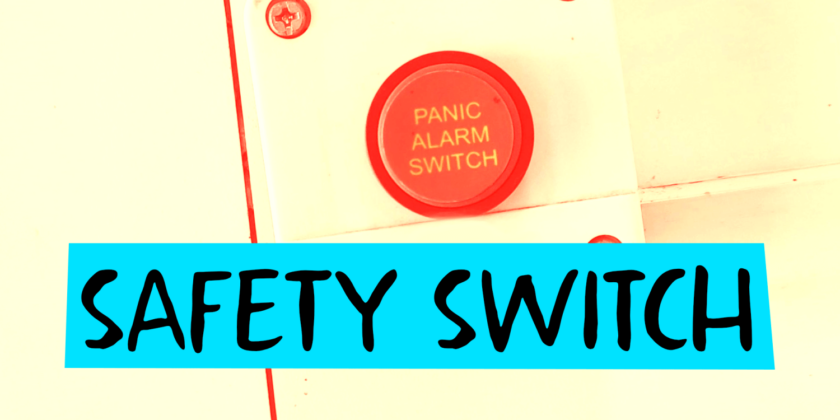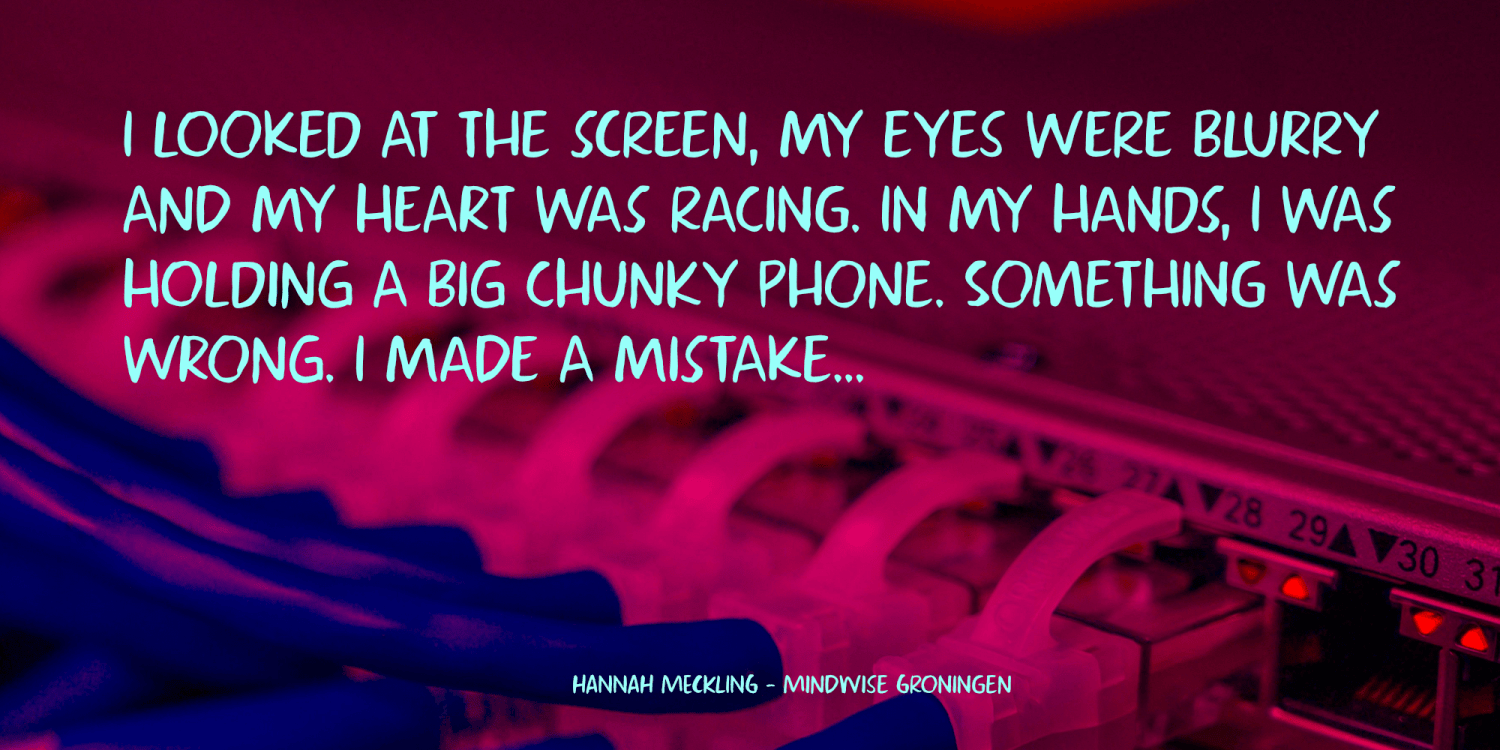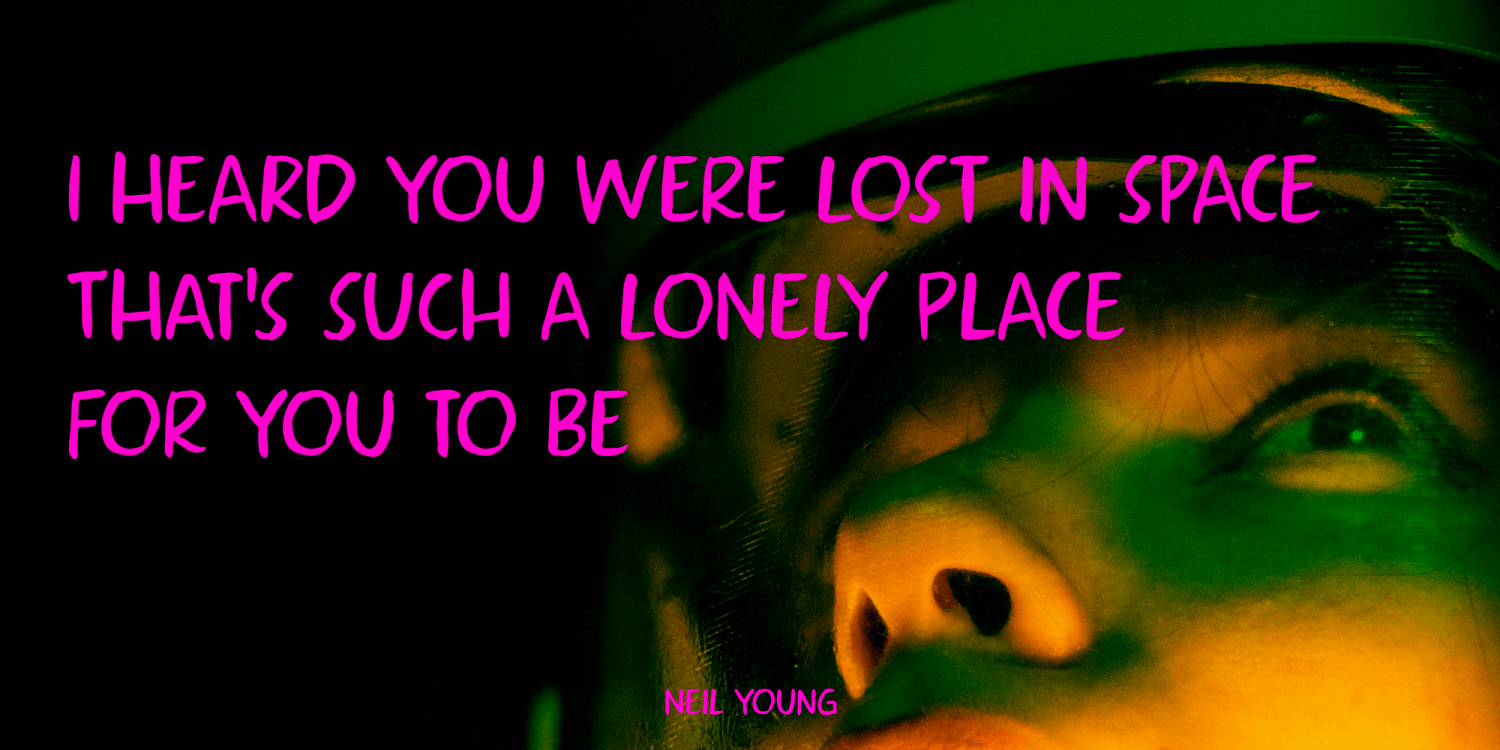
About Safety Switch
I am not entirely sure why I called this font Safety Switch. Maybe it is because I am renovating a ’30’s house and the Safety Switch has kept me from harm a couple of times! Safety Switch is a nice, handmade font. It was created using a thin…